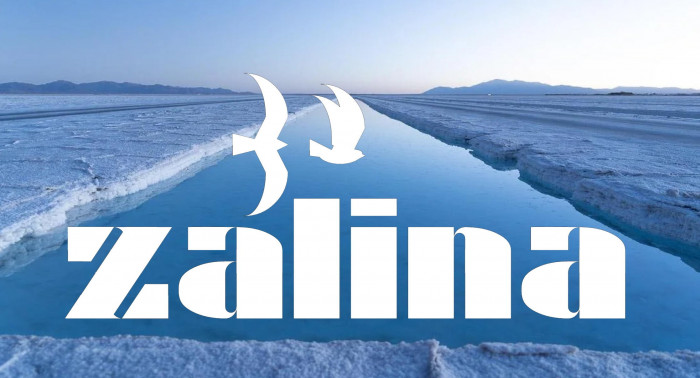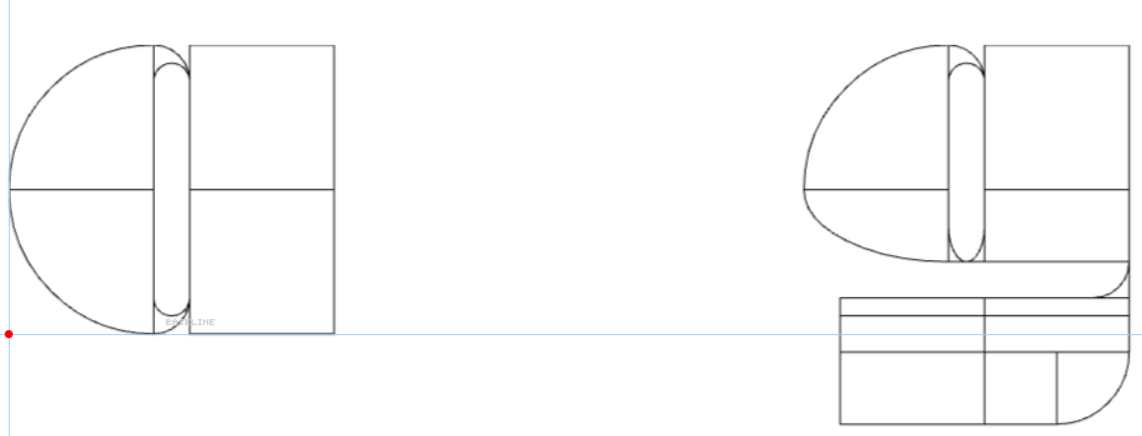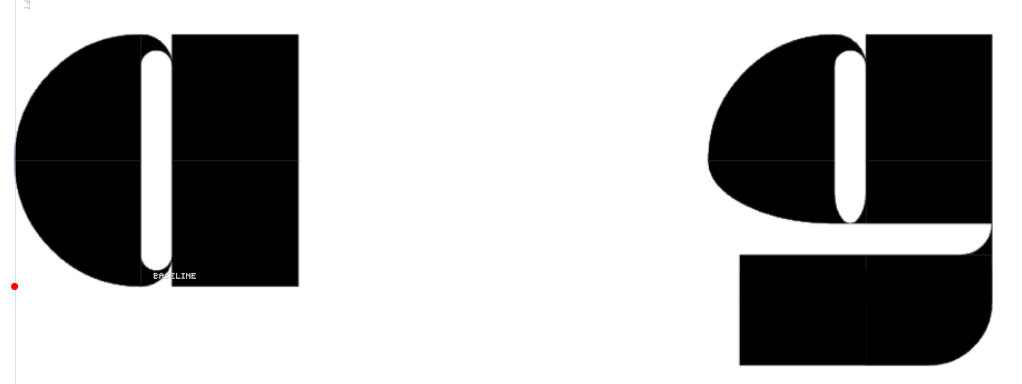
High contrast font, with two dingbats of little seagulls placed at the "fi" and "fl" ligatures.
Congratulations on your great new font! The birds are beautiful too.
@Stephen23: Thanks, I'll take a look at both alternates.